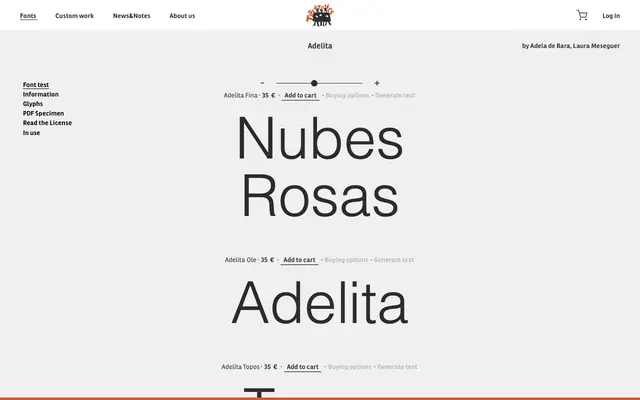
Adelita
Type-ø-tones · Adela de Bara, Laura Meseguer
A playful display family by Adela de Bara and Laura Meseguer, offered in four expressive stylistic variants.
Adelita comes in four distinct sub-families: Fina, Ole, Topos and Dibujitos, each suggesting a different visual register from delicate to illustrative. The naming and character of the variants point to a Spanish-inflected sensibility, likely suited to branding, editorial headlines and packaging. Designed collaboratively by Adela de Bara and Laura Meseguer under the Type-ø-tones imprint.
The family includes variants named Fina, Ole, Topos and Dibujitos, suggesting a playful, illustrative and decorative display typeface rather than a functional text face.